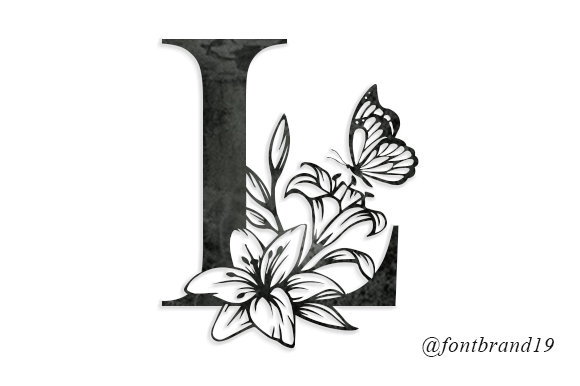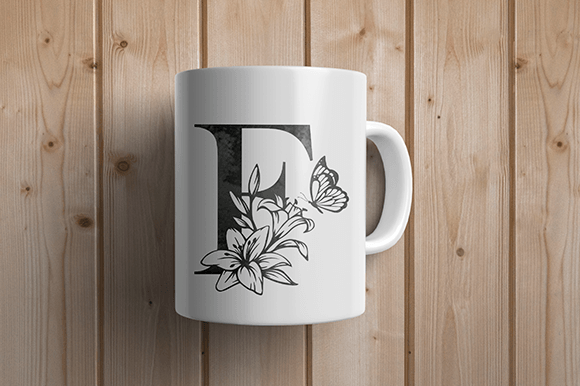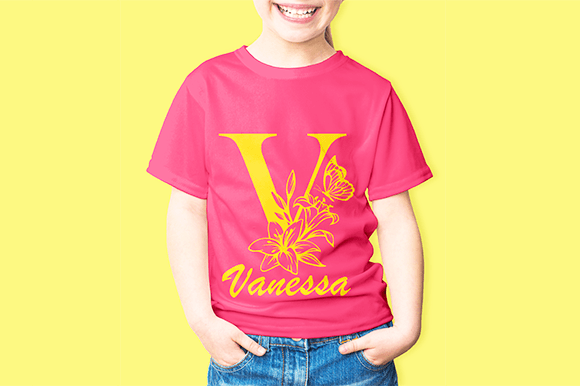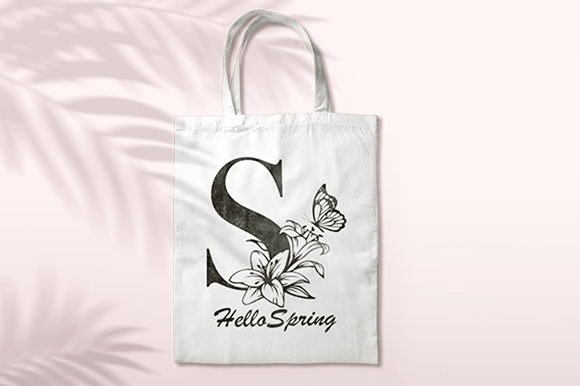
Lilyna Garden Monogram Font
About the Lilyna Garden Monogram Font
Welcome to the world of Lilyna Garden Monogram Font, a typeface that will inspire your next great project. Lilyna Garden Monogram is an elegant decorative font, featuring lovely ornaments. Fall in love with its authentic feel and use it to create gorgeous wedding invitations, beautiful stationary art, eye-catching social media posts, and cute greeting cards.
Lilyna Garden Monogram’s elegant, decorative style is ideal for projects requiring a touch of vintage charm. It excels in headlines, logos, short text blocks on invitations or packaging, and social media graphics where its ornate details can shine. Avoid using it for body text or lengthy paragraphs; its decorative nature would hinder readability.
This font’s personality is sophisticated yet playful. It suits brands focused on beauty, fashion, weddings, or artisanal goods. Consider pairing it with a clean sans-serif like Montserrat for contrast and readability in supporting text, or a classic serif like Garamond for a more traditional feel.
For a more modern twist, a geometric sans-serif like Futura could work well, balancing Lilyna Garden’s ornate flourishes with a structured, contemporary aesthetic. Avoid pairing it with other highly decorative fonts, as this would create visual clutter.